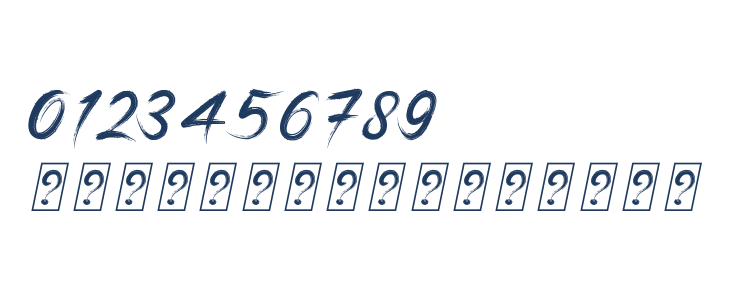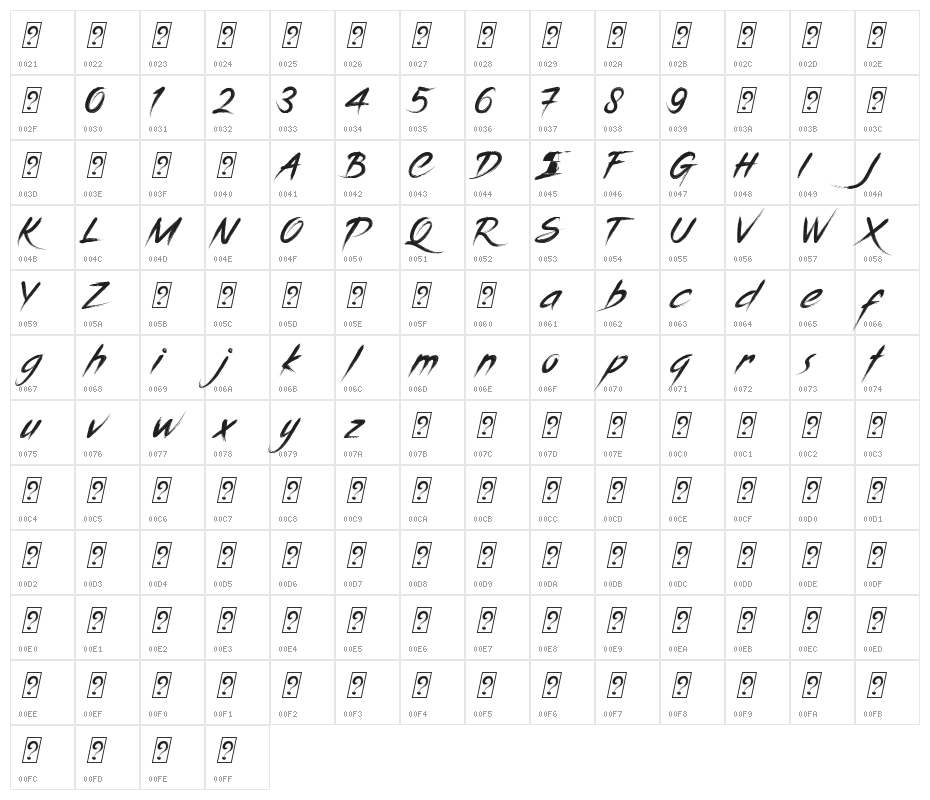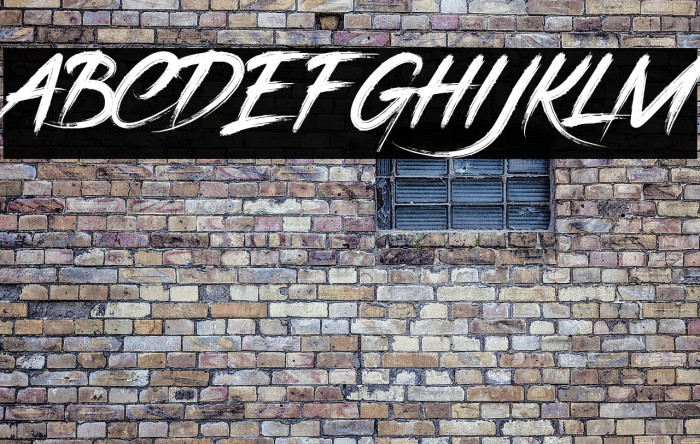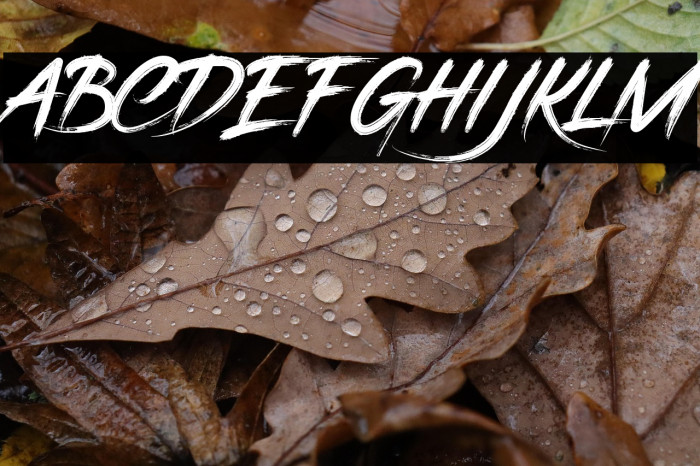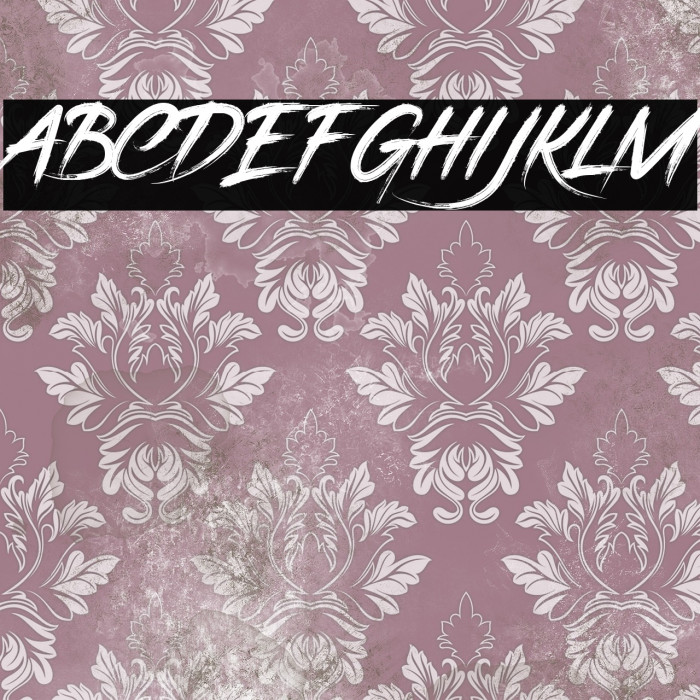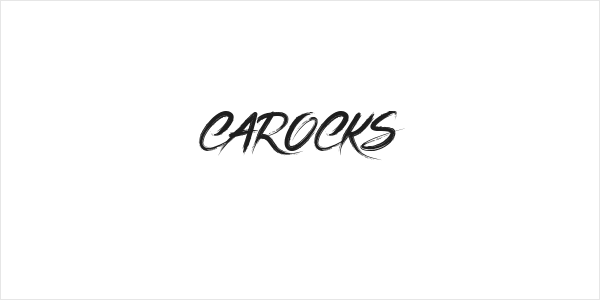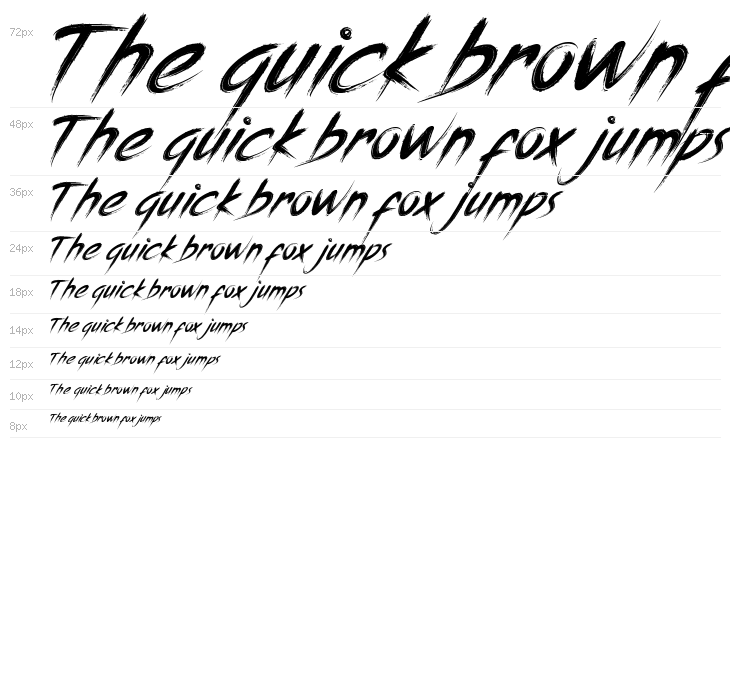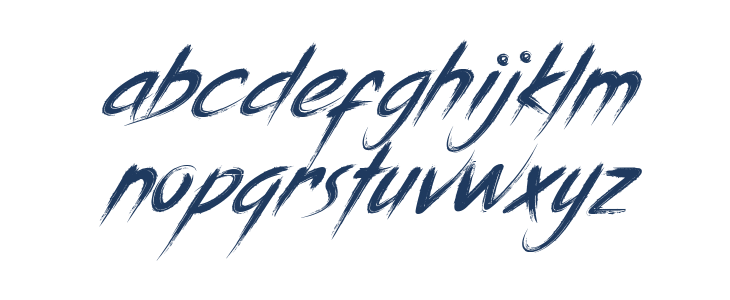
CAROCKS Font
CAROCKS Description
This font features a dynamic and energetic brush script style, characterized by bold, sweeping strokes and a sense of movement. The letters are slightly slanted, adding to the impression of speed and fluidity. The uppercase and lowercase letters maintain a consistent style, with exaggerated curves and sharp angles that give the font a distinctive, edgy appearance. The numbers follow the same design principles, ensuring uniformity across all characters. The font's unique style makes it stand out, with a modern and artistic flair that is both eye-catching and memorable.
| Use Case | Logos, Headlines, Posters |
| Proposed Projects | Ideal for projects that require a bold and artistic touch, such as logos, posters, and branding materials. |